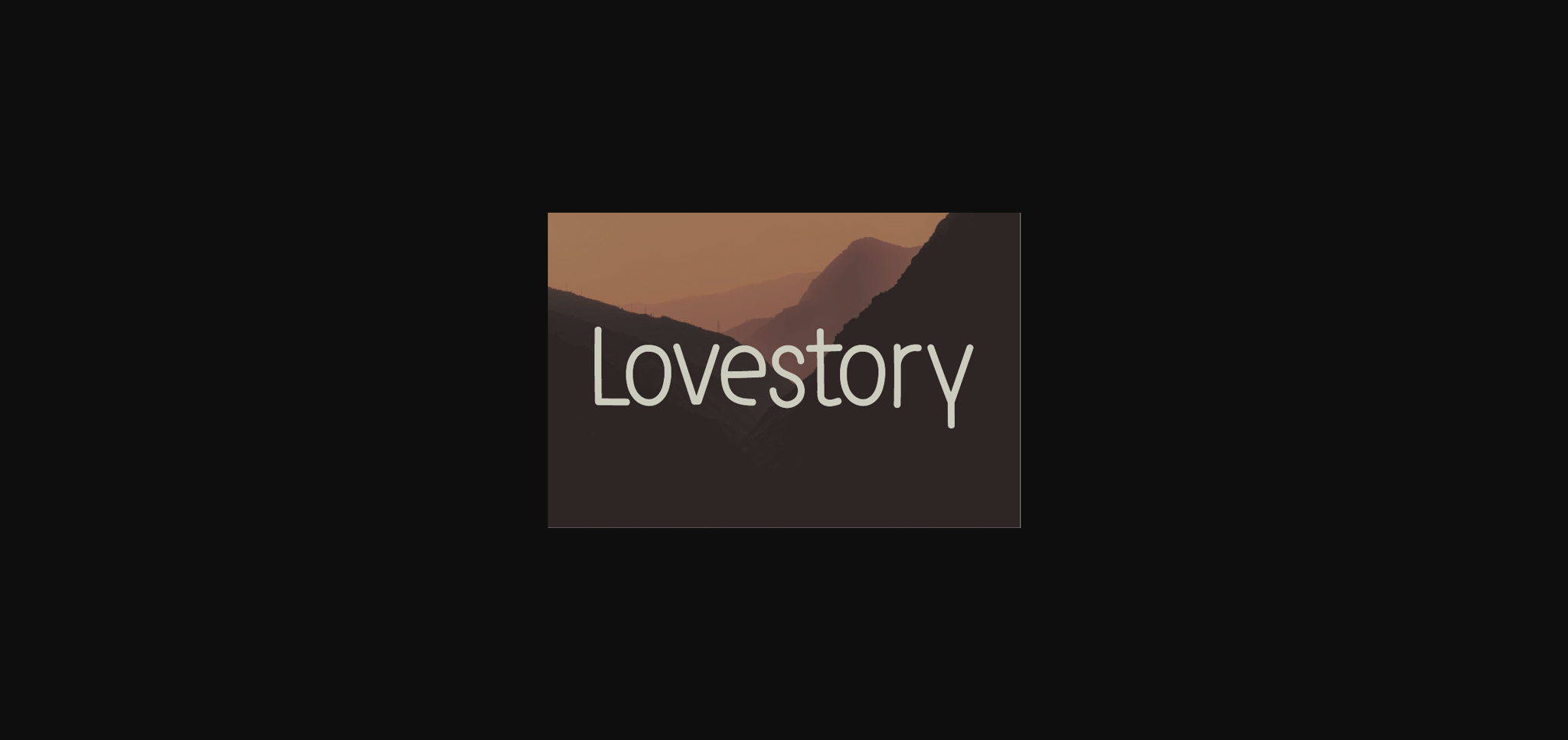
Lovestory Font
About Lovestory Font
Lovestory is a casual and neat sans serif font that impresses through its natural and elegant style. This typeface will enhance your craft with little effort, making your product stand out from the competition.